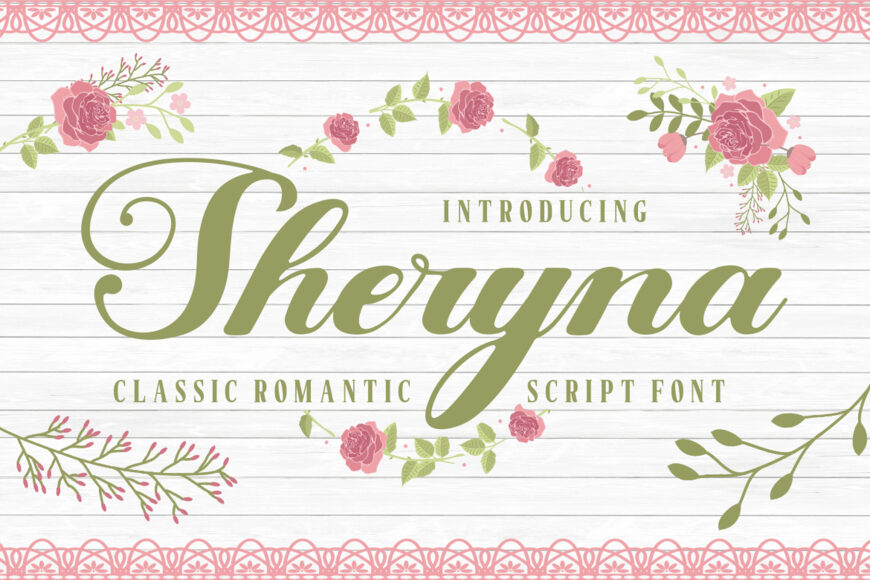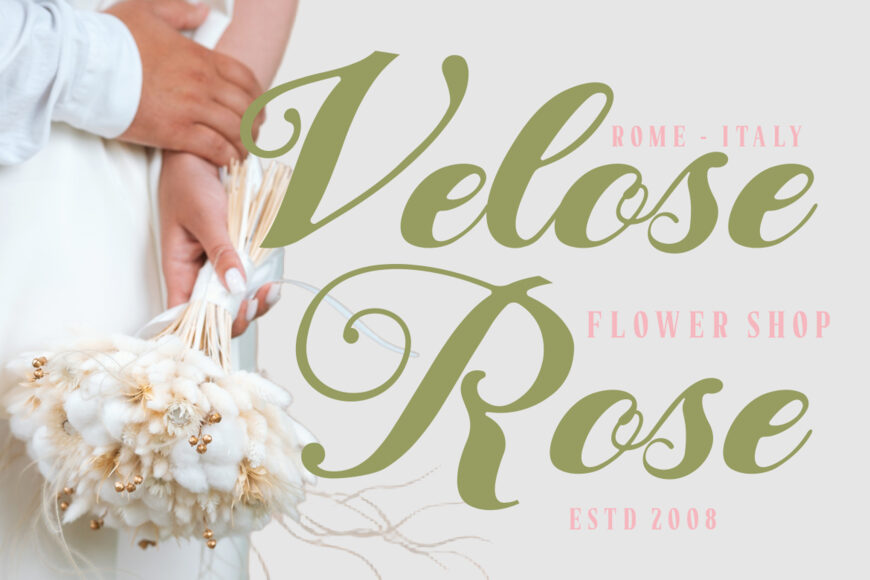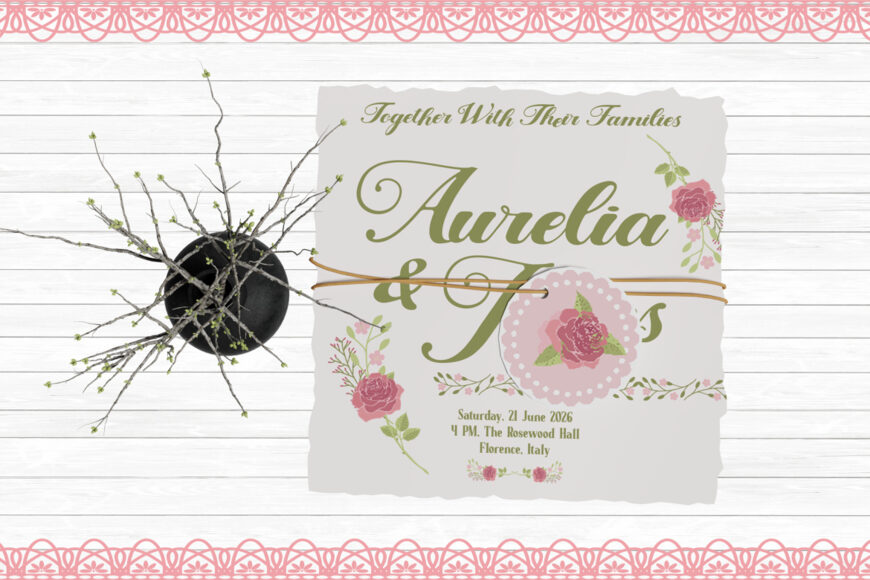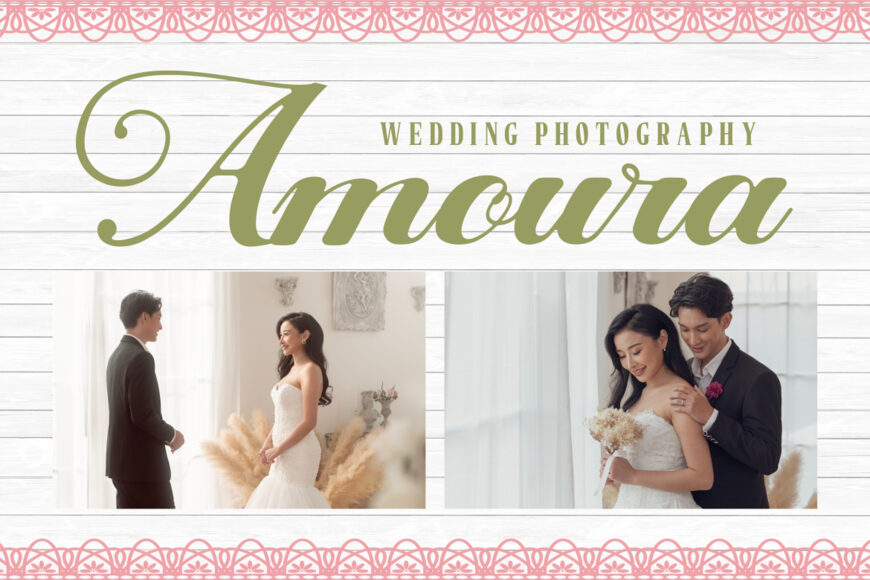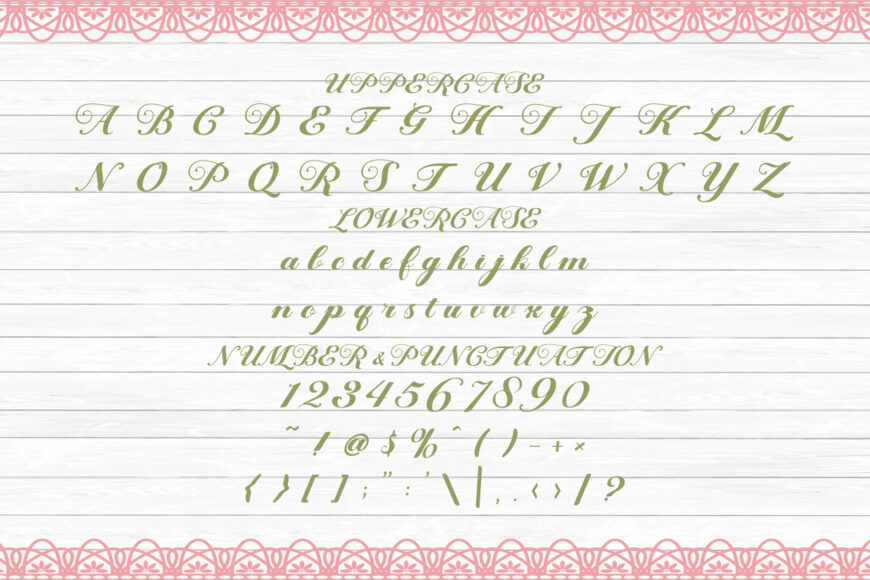
Sheryna is a classic romantic script font inspired by timeless calligraphy. Its elegant letterforms combine smooth, flowing strokes with balanced thick-and-thin contrast. Slightly tall characters, graceful curves, and extended swashes create a refined appearance, while soft, rounded terminals add a delicate rhythm.
Blending traditional handwriting with contemporary clarity, Sheryna conveys romance, elegance, and warmth. It is an excellent choice for logos, wedding invitations and branding, formal displays, and other designs that call for a graceful, heartfelt style.